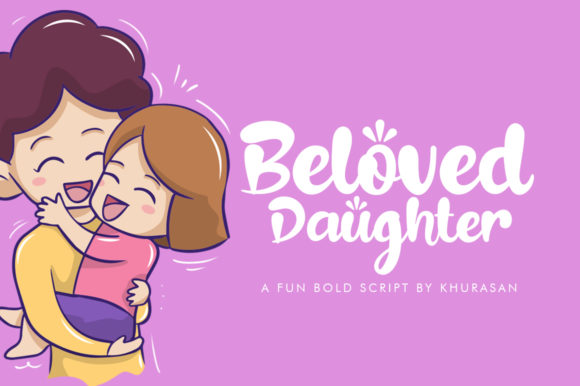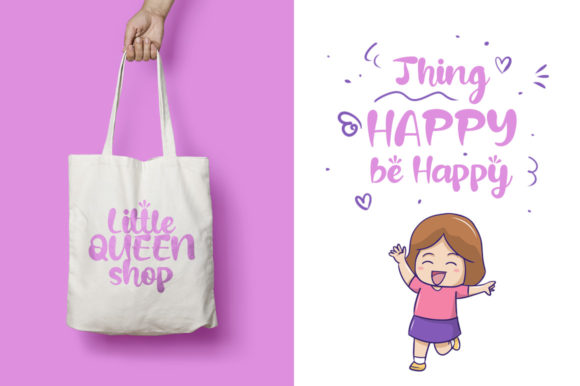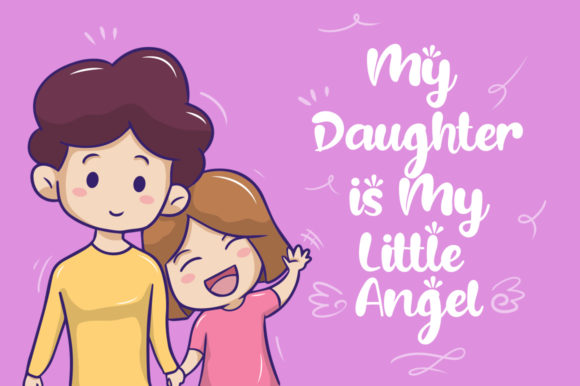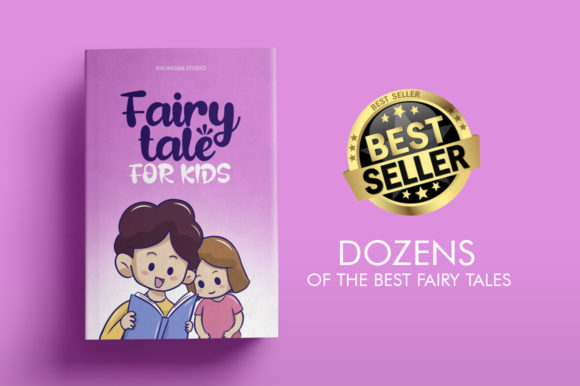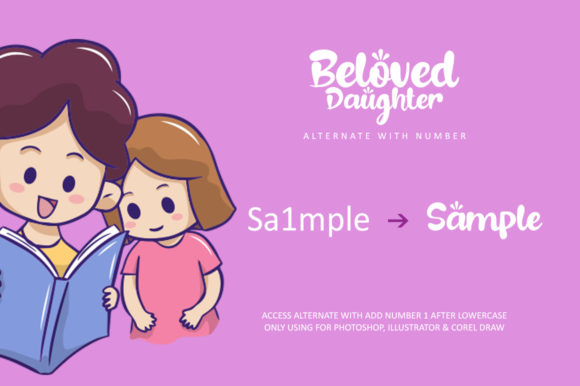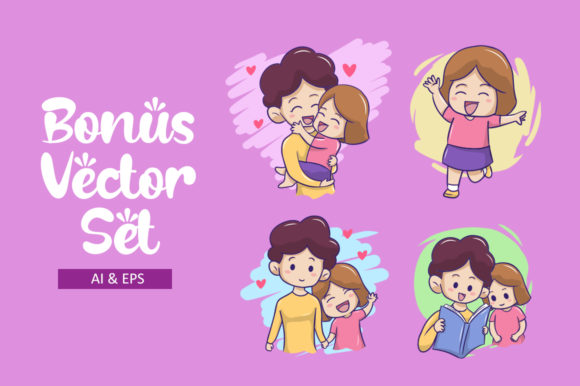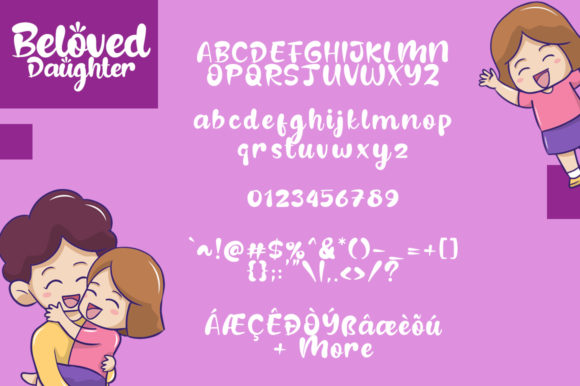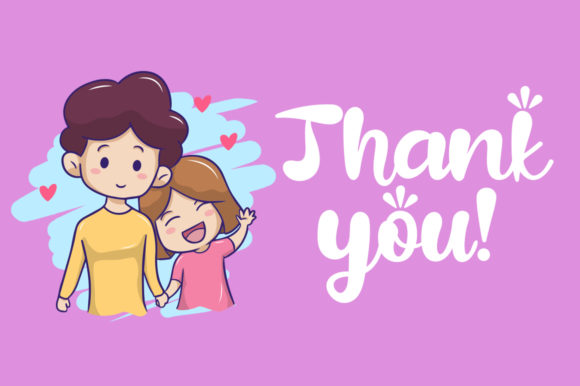
Beloved Daughter Font
About Beloved Daughter Font
Beloved Daughter is a beautiful handwritten font with a joyful feel. Fall in love with its elegant, yet adorable charm.